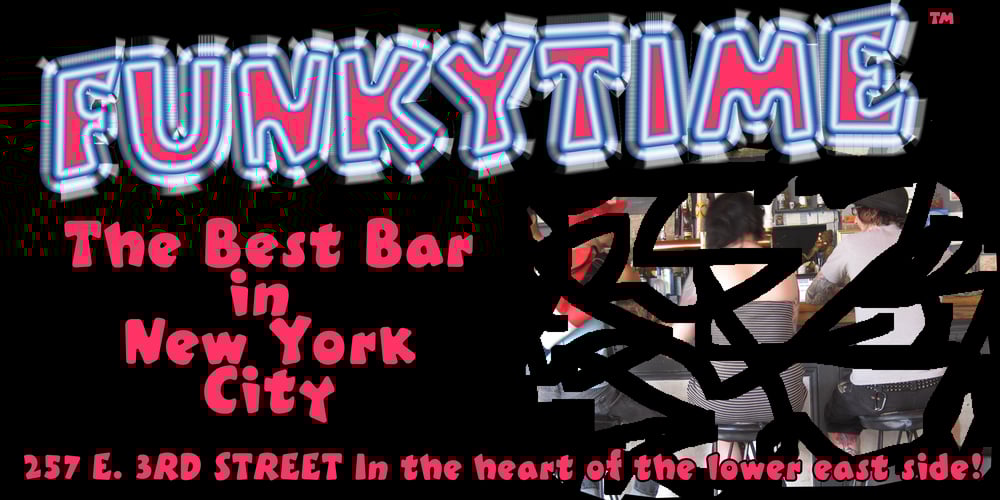
Boink Rounded
Boink Rounded font
Boink Rounded Font Family was designed by published by Robert Petrick. Boink Rounded contains 1 styles and family package options. Boink Rounded” is a new variation of my classic Boink font. The added softness of this new version extends the function of the easy and fun to use font.